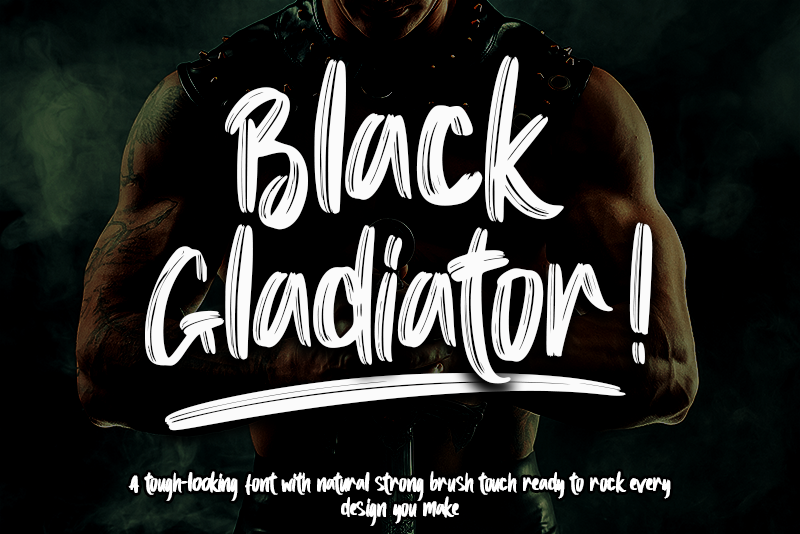
Black Gladiator by Letterara
"Bold, dry-brushed display font with thick letters perfect for casual designs, creative projects, and eye-catching headlines."